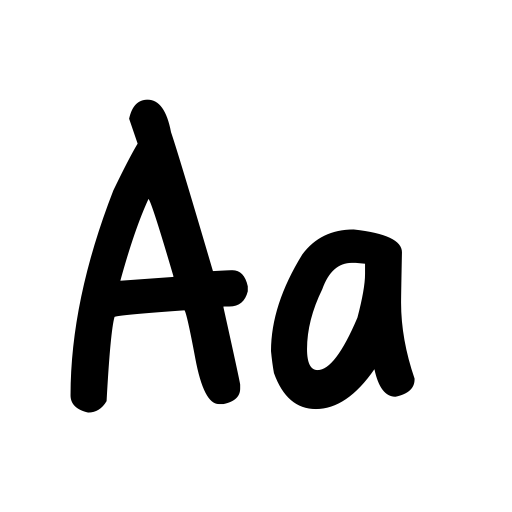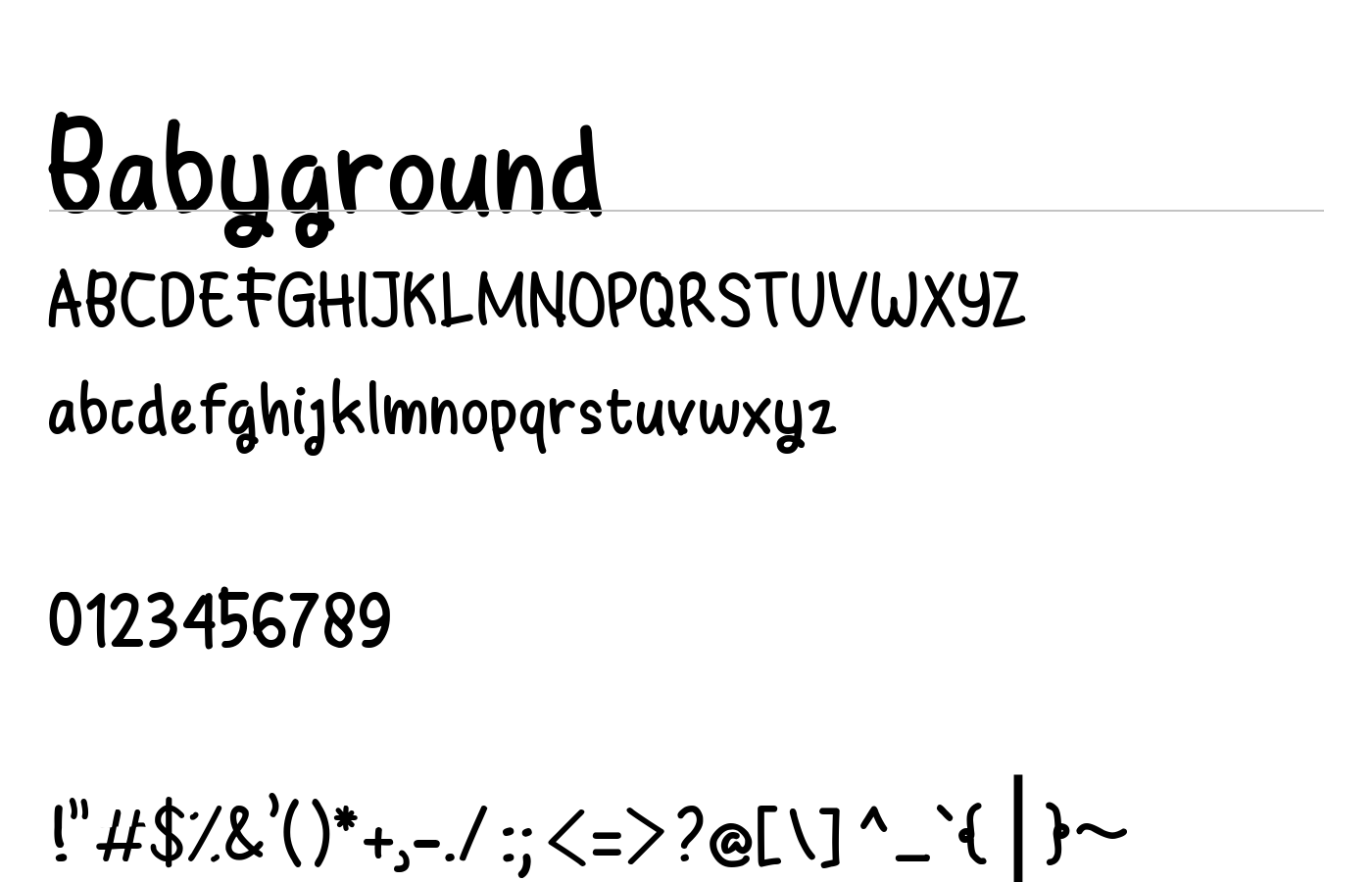
Babyground is a playful, hand-drawn sans serif font with a casual, friendly feel. Its irregular shapes, slight stroke variations, and tall x-height create a lively and approachable style, ideal for children's content, informal branding, and creative projects that want to convey warmth and personality. This font works well in headlines, logos, and packaging where a fun and quirky vibe is desired.
Babyground Font
About Babyground Font